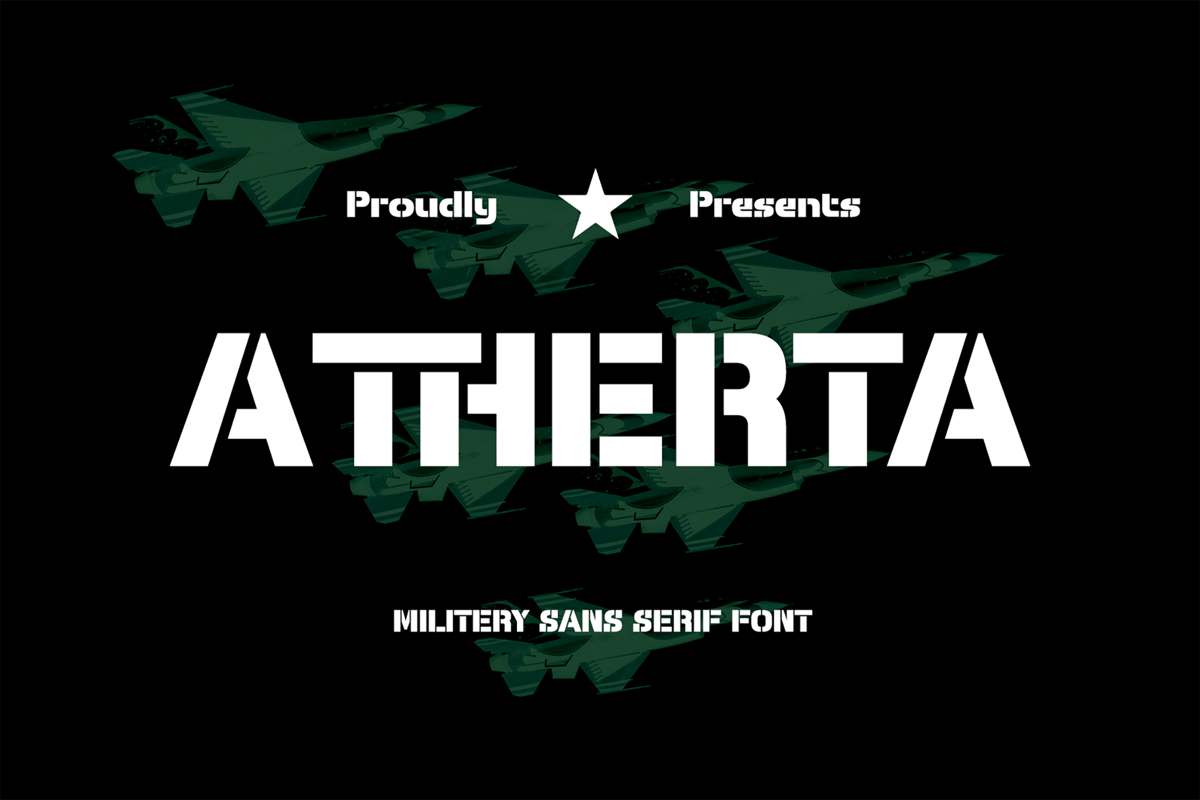
Atherta - Stencil Font
Command attention with this bold, military-inspired stencil typeface that delivers uncompromising strength and authority. Atherta brings the rugged aesthetics of military design to your creative projects. This commanding stencil font features clean cuts and bold letterforms that make a powerful statement in any application. Perfect for posters, games, apparel, and branding projects that demand a strong and authoritative presence. Whether you're designing for tactical themes, industrial concepts,...